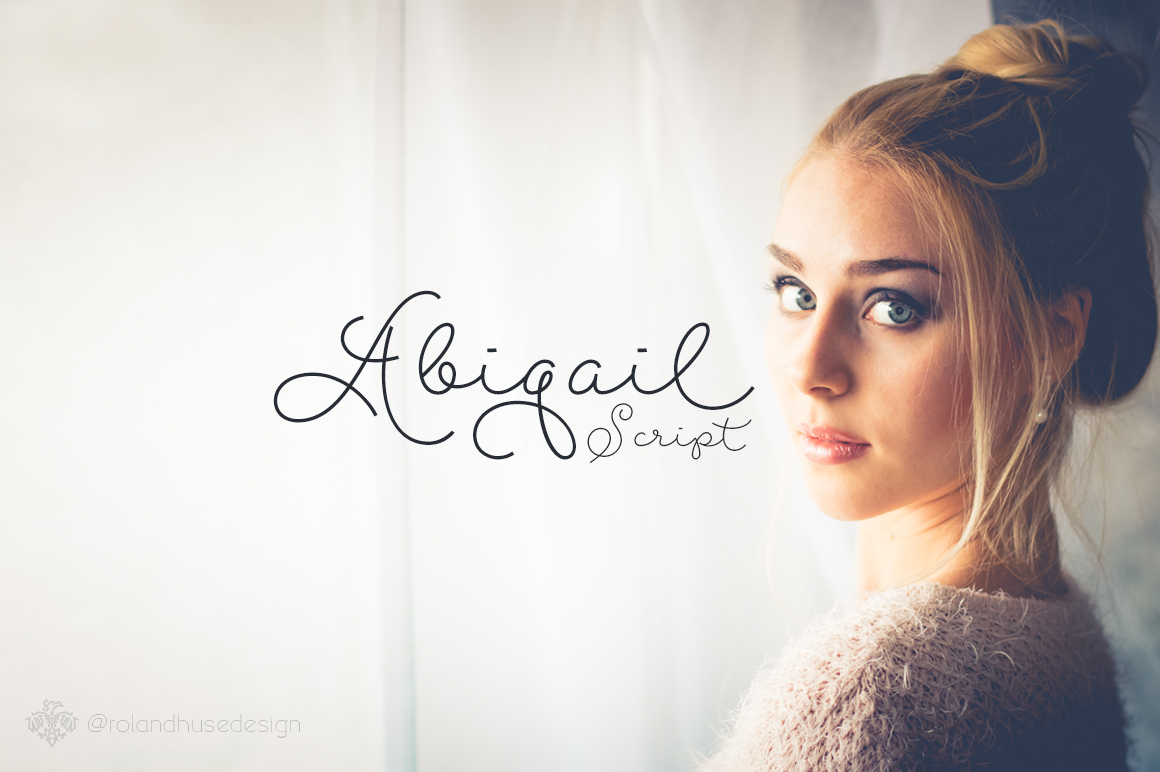
Unleashing the Magic of Handwritten Beauty
Have you ever sat down with a blank piece of paper and a pen, feeling the creative energy flow through you as you start to write? It’s a moment of pure joy, where the world slows down, and all that matters is the story unfolding on the page. For designers, this feeling is what drives us to create something truly special – and that’s exactly what the Abigail Script Font embodies.
As a handwritten, monoline cursive font, Abigail Script Font is perfect for adding a touch of elegance and whimsy to any design project. With its extensive set of stylistic alternates, ligatures, and positional forms, this font is a treasure trove of creative possibilities. Whether you’re working on a wedding invitation, a branding project, or a beautiful piece of typography, Abigail Script Font is sure to elevate your design to the next level.
Abigail Script Font Key Features
- Unique Characteristics: Abigail Script Font features a beautiful, handwritten script style with elegant connections between letters, giving it a personal and artistic touch.
Abigail Script Font Review
Overall, I think Abigail Script is a beautiful, elegant font that’s perfect for those looking for a classic, handwritten feel. ✨ The font’s intricate details and flourishes give it a unique touch that’s sure to add character to any design project. ✨ It’s also highly legible, even at smaller font sizes, making it a great choice for body text or headings.
However, there are a few limitations to consider. ⚠️ The font’s cursive nature can make it difficult to read in certain situations, such as in low-light environments or for people with vision impairments. ⚠️ Additionally, the font’s complexity can make it challenging to pair with other fonts, so you may need to get creative with your typography choices.
Here are a few things to keep in mind when working with Abigail Script:
- It’s best used for headings, titles, or short blocks of text.
- Pairs well with clean, sans-serif fonts like Open Sans or Lato.
- Can be challenging to use in body text due to its cursive nature.
- Perfect for wedding invitations, blog headers, or other creative projects.
In conclusion, Abigail Script is a beautiful font that’s perfect for designers looking for a unique, elegant touch. While it may have some limitations, the right projects can really showcase its potential.
Abigail Script Font is ideal for creating elegant, handwritten-style text. Use it for:
– Personalized gifts and cards
– Social media graphics and advertising
– Any project requiring a touch of whimsy and personality.